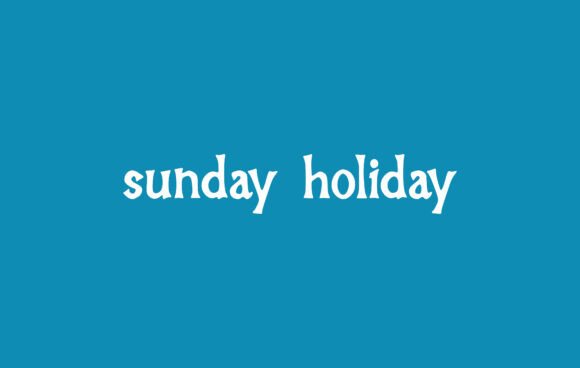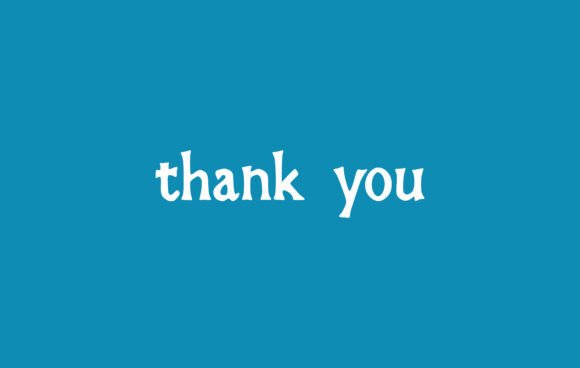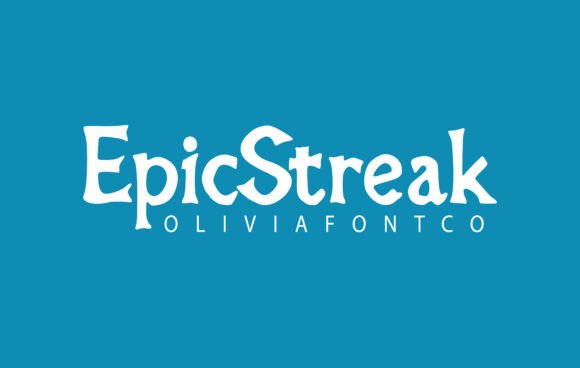
Epicstreak Font: Elevate Your Designs with a Romantic Handwritten Touch
In the world of typography, fonts play a crucial role in bringing creative ideas to life. For designers and crafters, finding the perfect font can be a daunting task. However, if you’re looking for a font that exudes romance and elegance, look no further than the Epicstreak Font. This authentic handwritten font is expertly designed to capture the hearts of designers and audiences alike.
The Charm of Epicstreak Font
Epicstreak font is an authentic handwritten font with a romantic touch. Its unique and elegant design makes it a true favorite among designers. The font’s legibility and versatility make it perfect for a wide range of design projects, from magazine headlines to social media graphics, branding, wedding invitations, and more.
Key Features of Epicstreak Font
- Authentic Handwritten Design: Epicstreak font boasts an authentic handwritten design that adds a personal touch to any project.
- Romantic Touch: The font’s romantic touch makes it perfect for designs that require a touch of elegance and sophistication.
- Legible and Versatile: Epicstreak font is highly legible, making it suitable for use as both title and body text.
- Wide Range of Applications: From magazine headlines to social media graphics, branding, wedding invitations, and more, Epicstreak font is perfect for various design projects.
Design Possibilities with Epicstreak Font
Epicstreak font offers endless design possibilities for crafters and designers. Here are a few ideas to get you started:
- Magazine Headlines: Use Epicstreak font to create eye-catching magazine headlines that grab readers’ attention.
- Social Media Graphics: Add a touch of elegance to your social media graphics with Epicstreak font.
- Branding: Use Epicstreak font to create a unique and memorable brand identity.
- Wedding Invitations: Make your wedding invitations extra special with Epicstreak font’s romantic touch.
- Cards and Stationery: Use Epicstreak font to create beautiful cards and stationery for special occasions.
Why Choose Epicstreak Font?
With so many fonts available, why choose Epicstreak font? Here are a few reasons:
- Unique Design: Epicstreak font boasts a unique and elegant design that sets it apart from other fonts.
- High Legibility: The font’s high legibility makes it perfect for use in a wide range of design projects.
- Versatility: Epicstreak font is versatile and can be used for various design projects, from print to digital.
- Elegance and Sophistication: The font’s romantic touch adds a touch of elegance and sophistication to any design project.
In conclusion, Epicstreak font is an excellent choice for designers and crafters looking for a font that exudes romance and elegance. Its unique design, high legibility, and versatility make it perfect for a wide range of design projects. Whether you’re working on a magazine headline, social media graphic, branding project, or wedding invitation, Epicstreak font is sure to elevate your designs to the highest level.